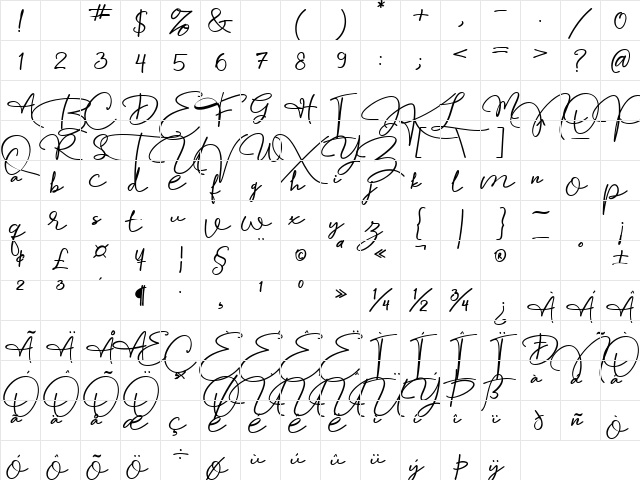
Capricious Ambrosia Regular Free Font
Capricious Ambrosia Regular
Designer: Rinaldo Hasibuan
Design Context for Capricious Ambrosia
Capricious Ambrosia is a composed and adaptable typeface that performs quietly and consistently across a wide range of design contexts.